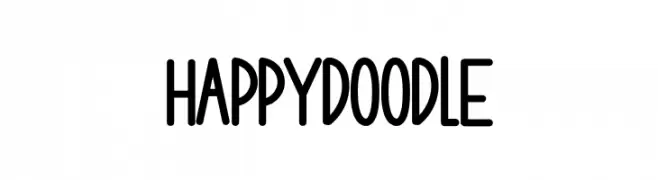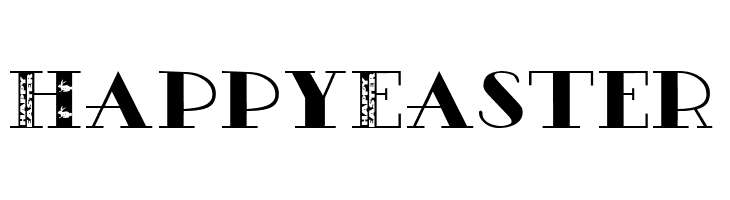
A playful, rounded font with smooth edges and a friendly style.
A playful, hand-drawn font with rounded, consistent strokes and a whimsical charm.
A decorative, Easter-themed font with playful elements and intricate patterns.
A festive, decorative font with Easter-themed elements and bold styling.
A playful, bold, and cartoonish font with a thick outline and lively style.
A playful, decorative font with Easter-themed illustrations and text.
A bold, dripping font with an edgy, artistic style.
A playful handwritten font with a casual and friendly style.
A modern and vintage-inspired font with rounded edges and geometric shapes.
A playful, handwritten font with a friendly and casual style.